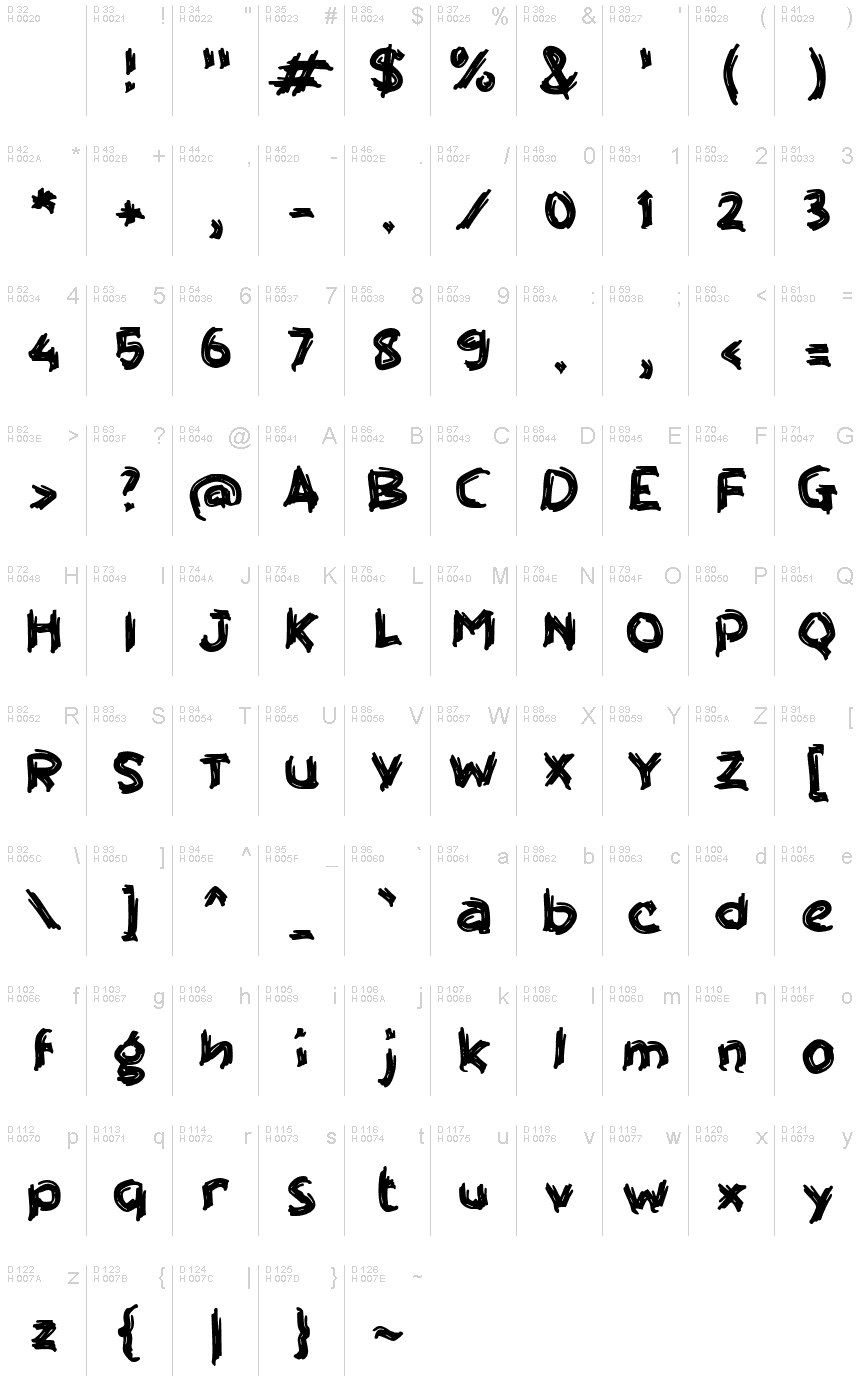
Introducing Estebu - a bold script font, masterfully crafted by designer Wahyu Eka Prasetya. Its unique, trashy style makes it perfect for projects requiring an edgy, modern feel such as magazine spreads, urban apparel designs and street art posters.